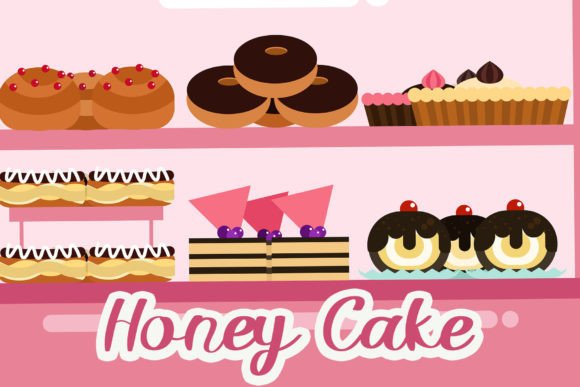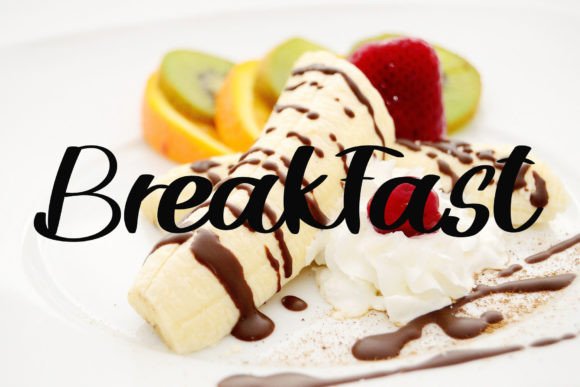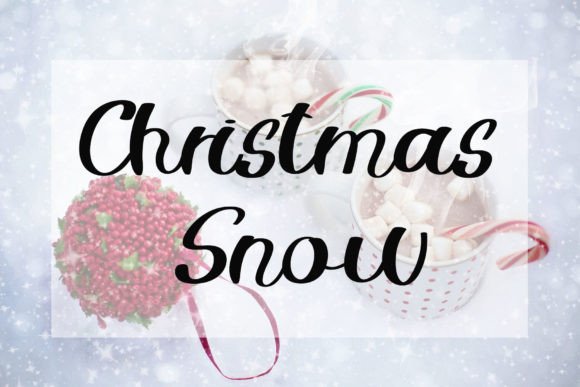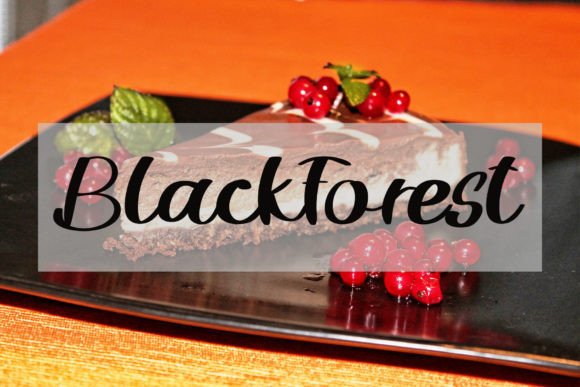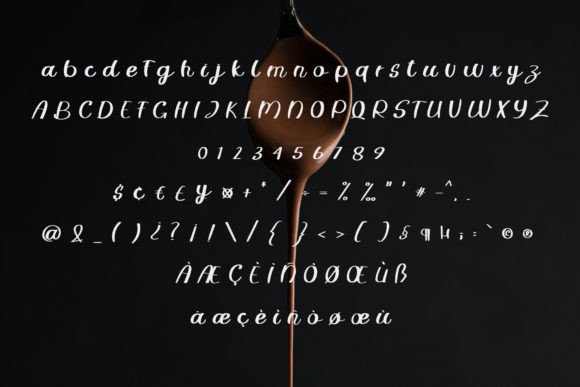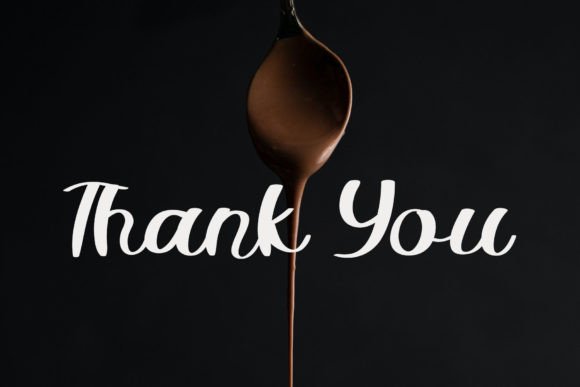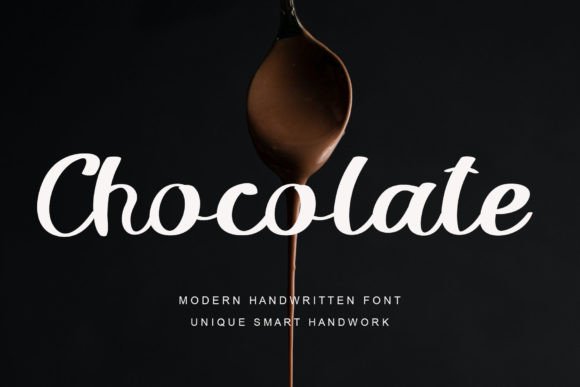
Introducing Chocolate Font: The Sweetest Addition to Your Design Collection
Are you on the hunt for a font that’s as smooth as silk and as rich as, well, chocolate? Look no further! Chocolate Font is a unique and casual-looking display font that’s been crafted with great care to produce the expected results. In this article, we’ll dive into the world of Chocolate Font and explore its features, uses, and benefits for designers and crafters.
What is Chocolate Font?
Chocolate Font is a display font that’s designed to add a touch of whimsy and playfulness to your designs. Its casual and informal vibe makes it perfect for writing titles, invitations, letters, and various other types of informal products. Whether you’re working on a DIY project, a branding campaign, or a social media post, Chocolate Font is sure to bring a smile to your audience’s faces.
Key Features of Chocolate Font
• Unique and Quirky Design: Chocolate Font boasts a one-of-a-kind design that’s sure to stand out from the crowd. Its irregular shapes and rounded edges give it a friendly and approachable feel.
• Highly Readable: Despite its playful design, Chocolate Font is highly readable, even at smaller sizes. This makes it perfect for use in titles, headings, and short paragraphs.
• Versatile: Chocolate Font can be used for a wide range of design projects, from digital media to print materials.
Uses of Chocolate Font
So, what can you use Chocolate Font for? The possibilities are endless! Here are a few ideas to get you started:
• DIY Projects: Add a personal touch to your DIY projects, such as scrapbooking, card making, and crafting.
• Branding and Marketing: Use Chocolate Font to create eye-catching titles and headings for your branding campaigns, social media posts, and advertisements.
• Invitations and Stationery: Create beautiful and playful invitations, greeting cards, and stationery with Chocolate Font.
• Digital Media: Use Chocolate Font in your digital media, such as blog posts, videos, and social media graphics.
Benefits of Using Chocolate Font
So, why should you choose Chocolate Font for your design projects? Here are a few benefits to consider:
• Adds a Personal Touch: Chocolate Font’s playful design adds a personal touch to your designs, making them more relatable and engaging.
• Stand Out from the Crowd: Chocolate Font’s unique design helps you stand out from the crowd and grab your audience’s attention.
• Easy to Read: Chocolate Font’s high readability makes it easy for your audience to quickly scan and understand your content.
• Versatile: Chocolate Font can be used for a wide range of design projects, making it a great addition to your font collection.
Tips for Using Chocolate Font
Here are a few tips to help you get the most out of Chocolate Font:
• Use it Sparingly: Chocolate Font is a display font, so use it sparingly to add emphasis to your designs.
• Pair it with Other Fonts: Pair Chocolate Font with other fonts to create a unique and visually appealing combination.
• Experiment with Colors: Chocolate Font looks great in a variety of colors, so don’t be afraid to experiment and find the perfect hue for your design.
In conclusion, Chocolate Font is a unique and versatile display font that’s perfect for designers and crafters looking to add a touch of whimsy and playfulness to their designs. With its highly readable design, quirky style, and ease of use, Chocolate Font is sure to become a favorite in your font collection. So why not give it a try and see how it can sweeten up your designs?